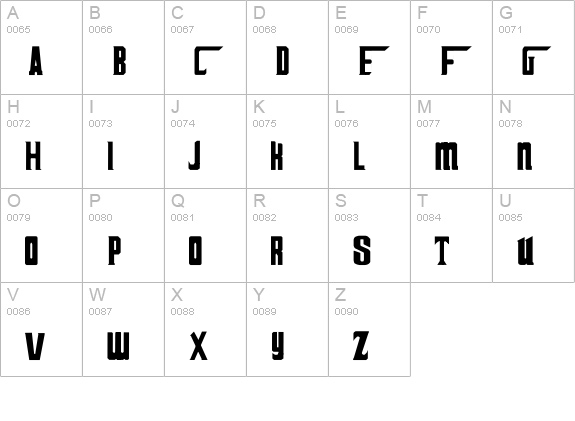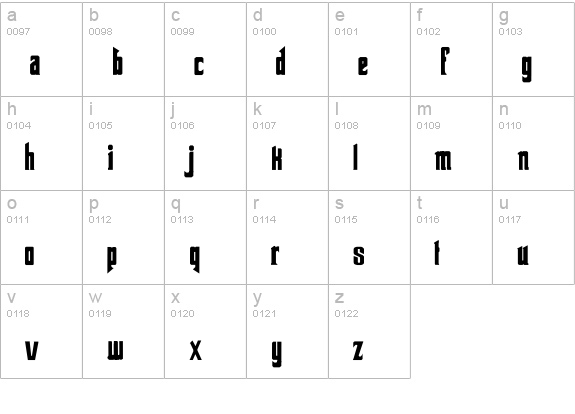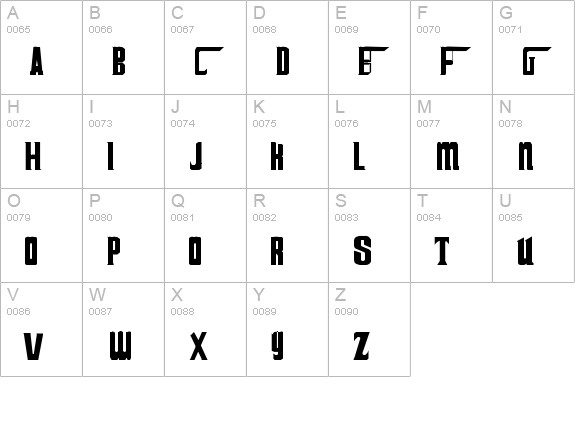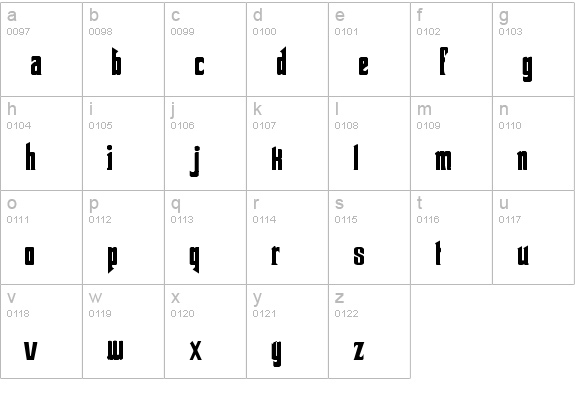
Godfather Font Details
The Godfather font is a stylish and sophisticated typeface inspired by the classic film of the same name. Its bold and powerful appearance exudes an air of authority and elegance, making it perfect for adding a touch of sophistication to your designs. With its sleek lines and sharp angles, the Godfather font commands attention and creates a strong visual impact. Whether you're working on a poster, logo, or any other creative project, this font will elevate your design to the next level. Best of all, the Godfather font is available for free download at FontsMarket.com. This means you can easily add this stunning typeface to your collection without breaking the bank. Don't miss out on the opportunity to use this premium font in your projects and make a lasting impression with your designs. Download the Godfather font today and take your creativity to new heights!